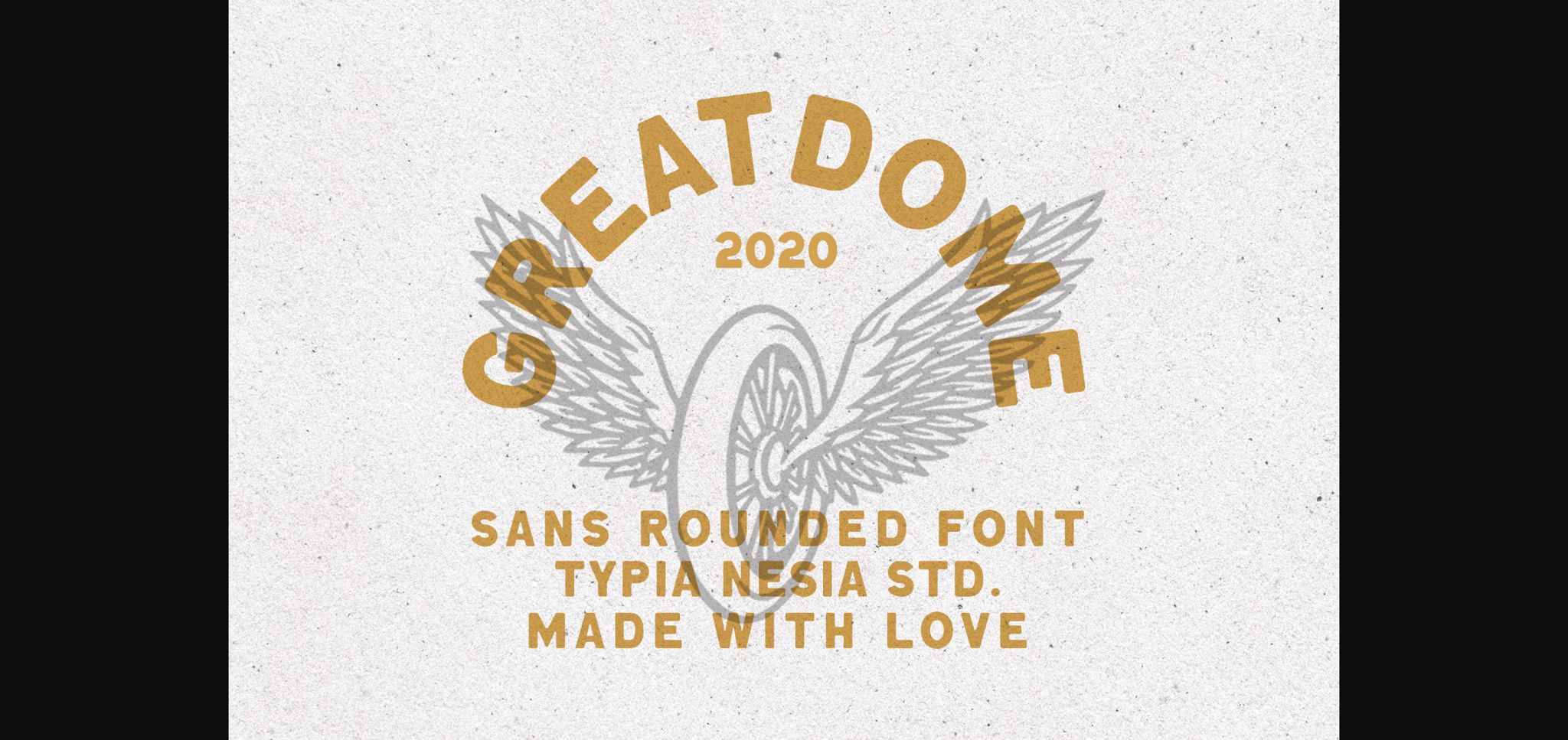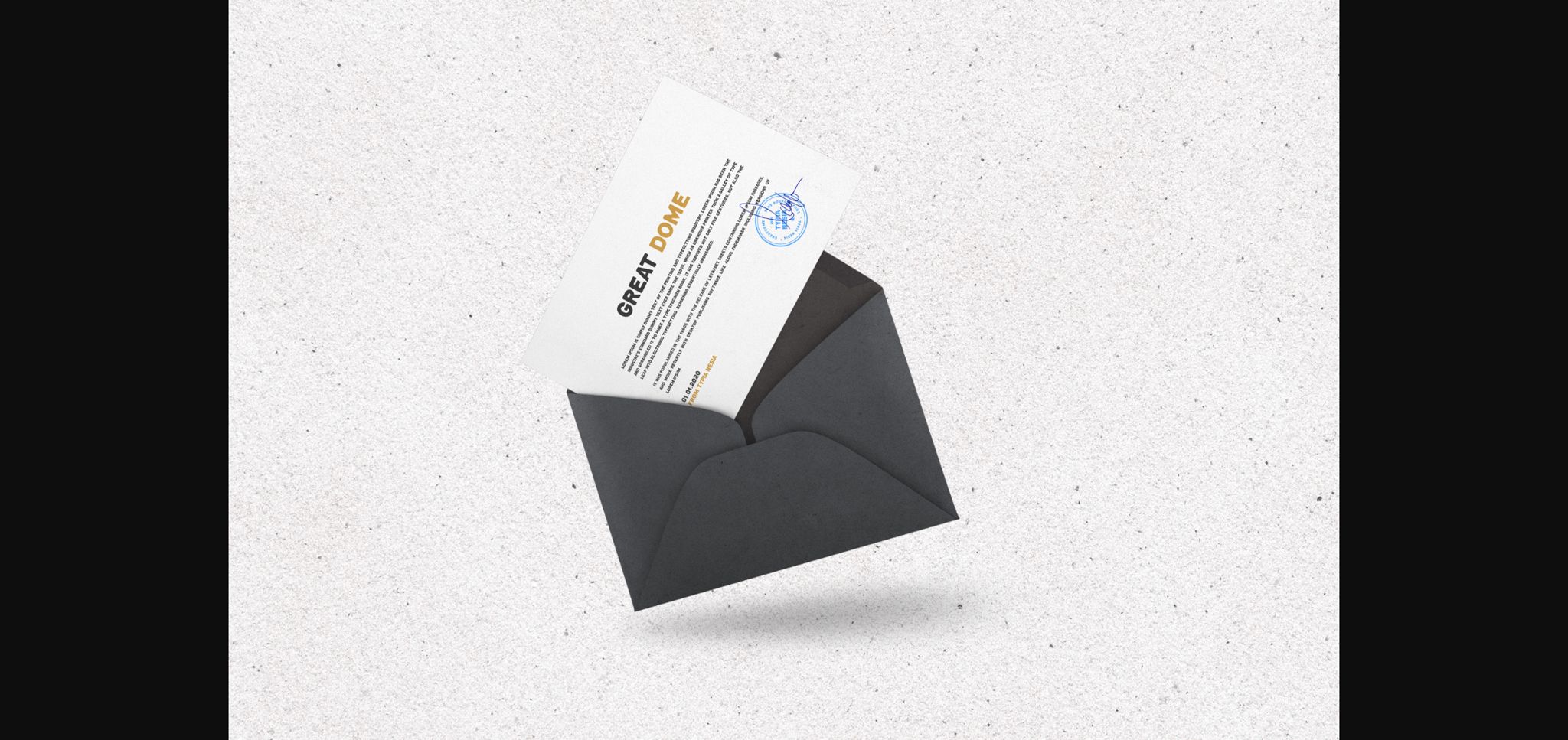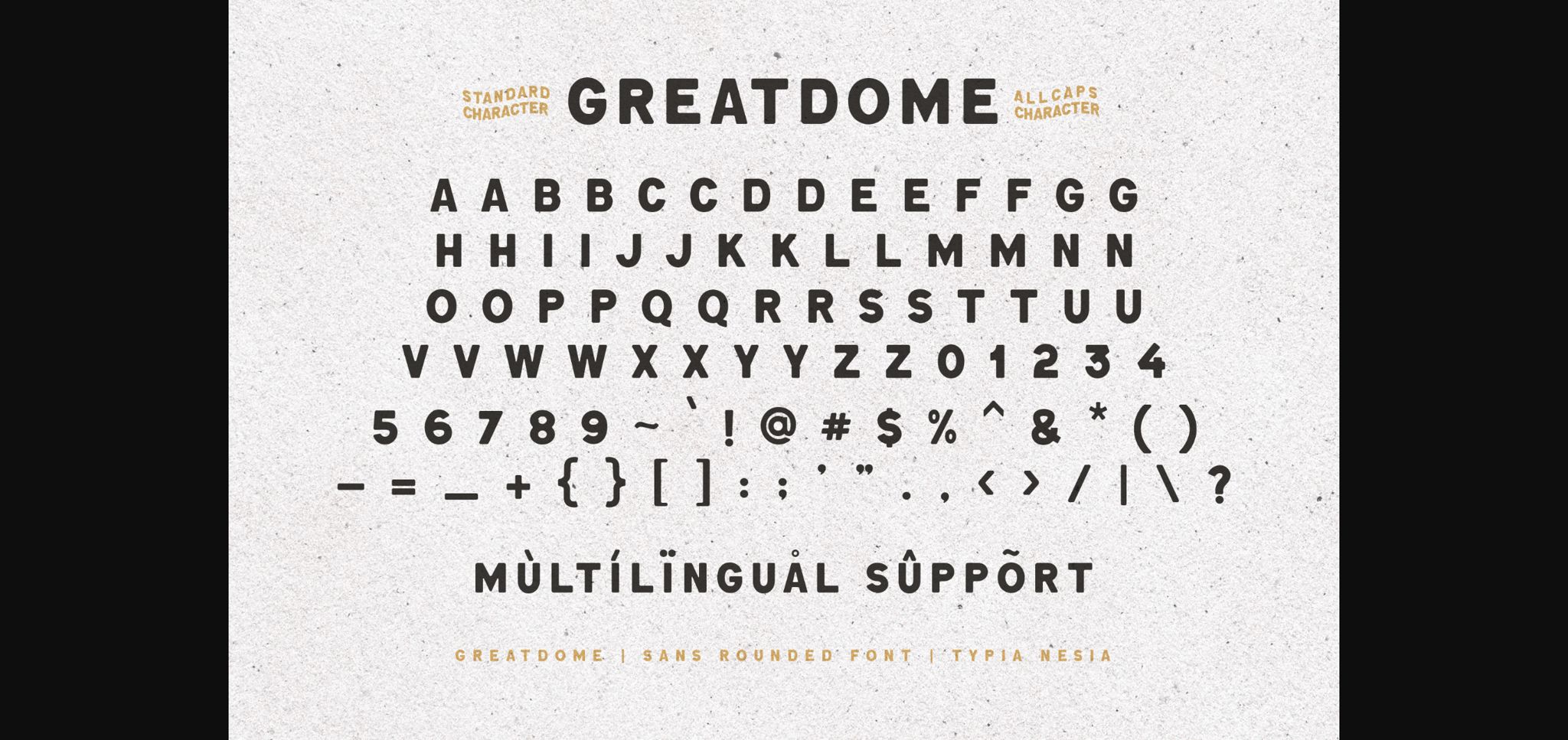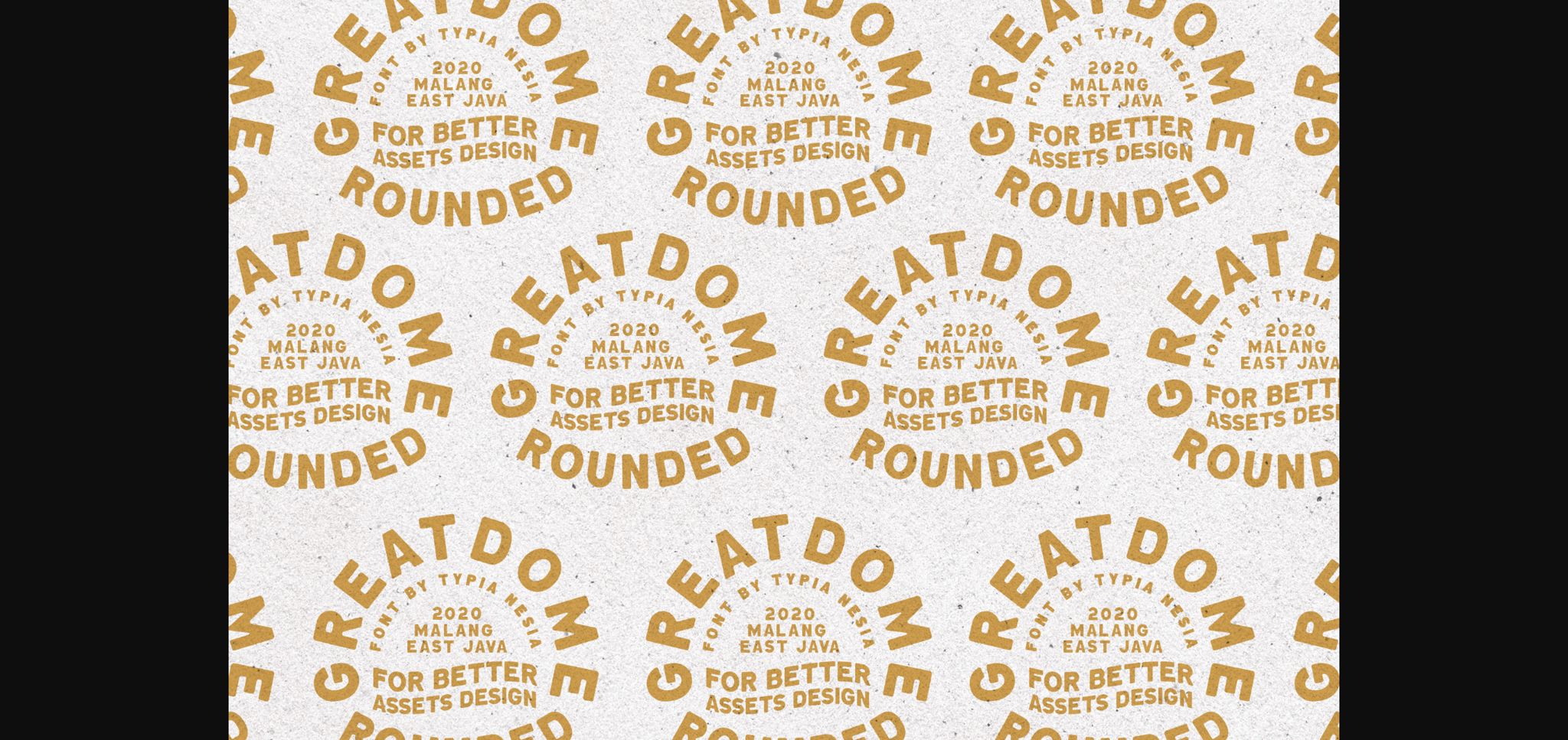
About Great Dome Font
Great Dome feels like an incredibly elegant and authentic vintage sans serif typeface. It will add a down-to-earth vibe to a wide variety of projects!